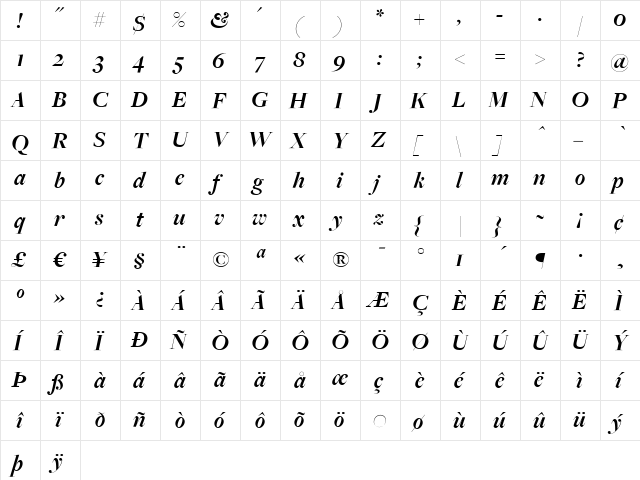
FreightBigBoldItalic Regular
| Foundry | Joshua Darden & Phil's Fonts, Inc |
| Designer | Joshua Darden |
Design Context for FreightBigBoldItalic Typeface
FreightBigBoldItalic takes a measured approach to typography — its balanced proportions and neutral character make it a reliable workhorse for both digital and print work. Its italic angle brings a sense of urgency and motion to the letterforms. The heavy weight commands attention and anchors typographic hierarchies.